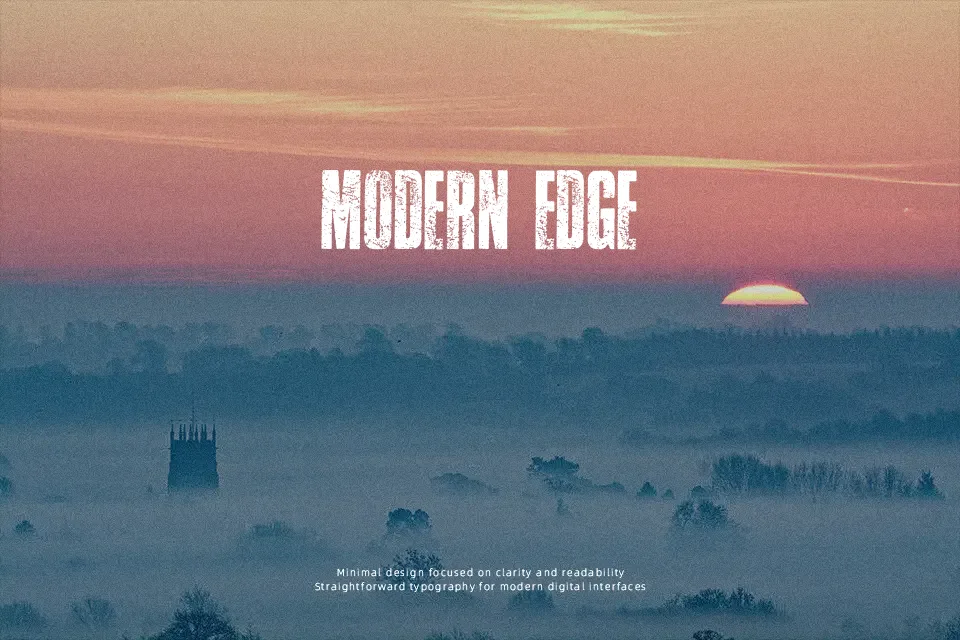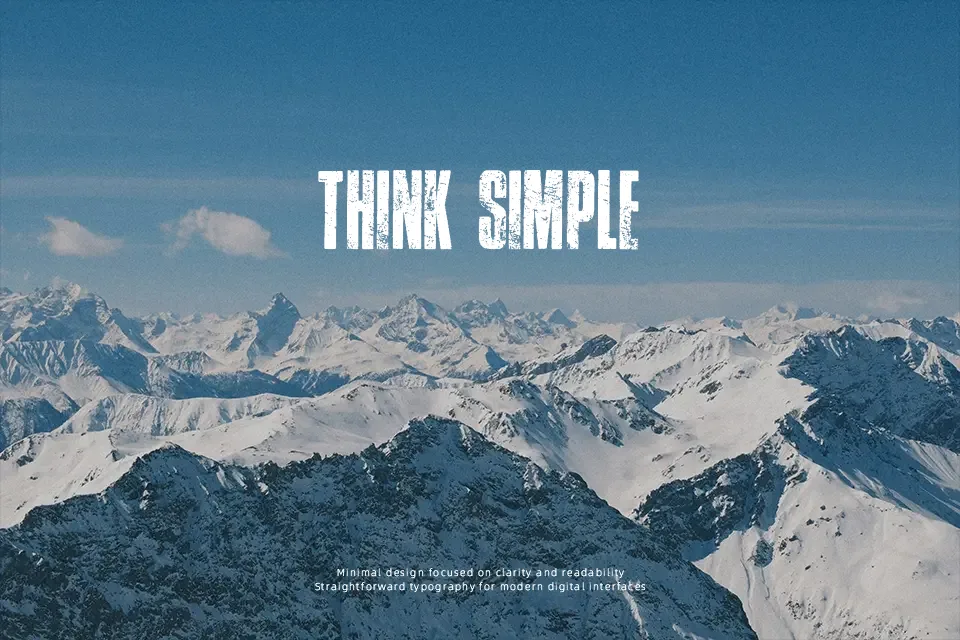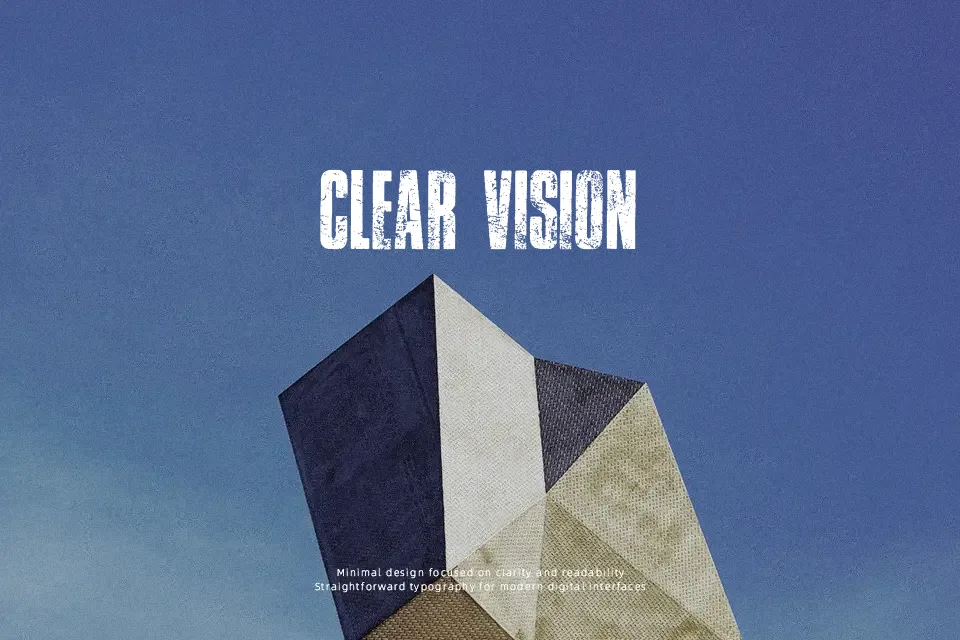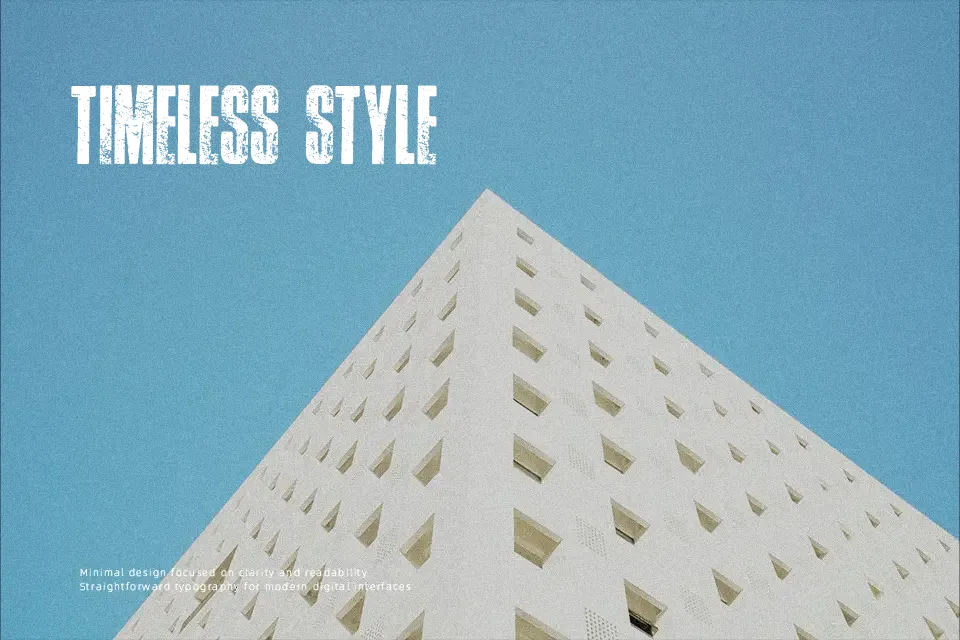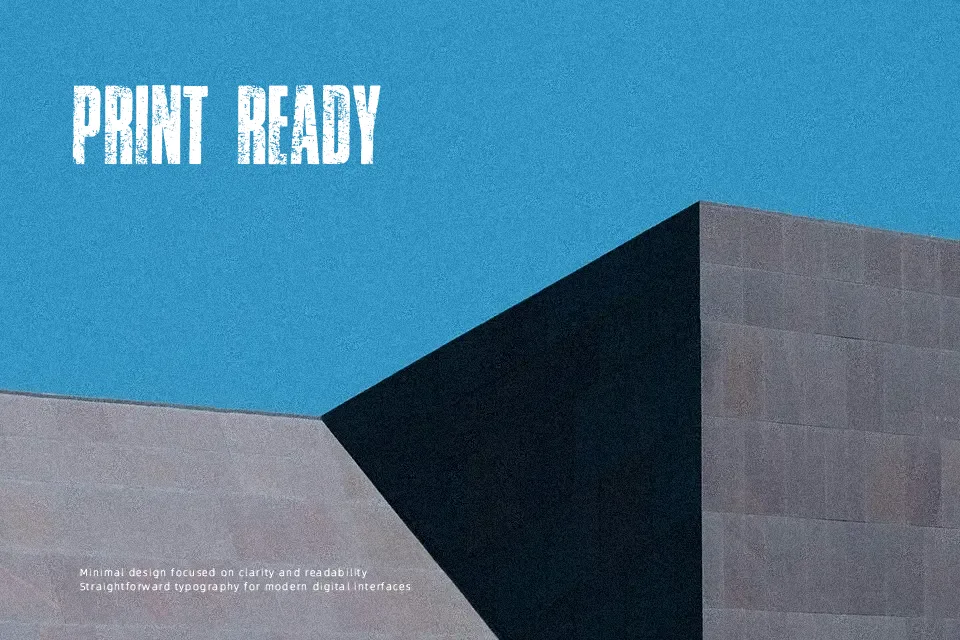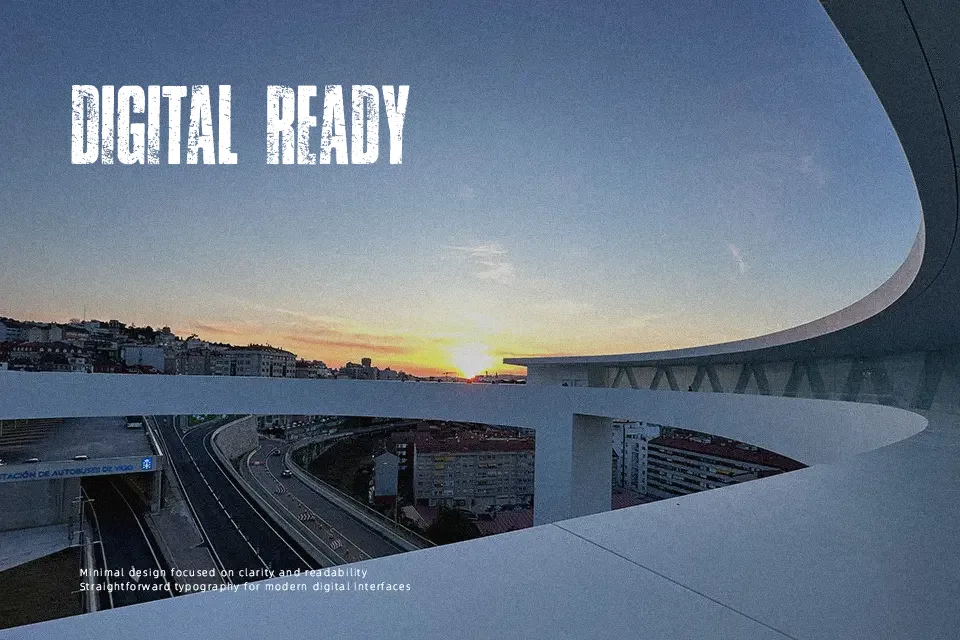
Traffic Font
Evaluating Traffic Font reveals a specialized display typeface engineered primarily for heavy visual impact rather than body text. The letterforms exhibit dense stroke weight marked by chipped, eroded cutouts along each boundary, creating a gritty industrial surface. Character spacing remains relatively tight, which reinforces solid headline composition while preserving recognizable contours at larger display scales. Narrow horizontal proportions allow long titles to occupy compact horizontal dimensions effectively without sacrificing visual weight. However, the heavy distressing and condensed spacing severely compromise clarity across smaller interface labels or continuous reading. Displaying the typeface in large-scale streetwear graphics, aggressive poster headers, or video game title screens maximizes its distinct visual personality.
Best For: music festival posters, apparel graphics, video game title screens, product packaging labels
Not Ideal For: continuous body text, mobile interface labels, corporate annual reports, dense editorial layouts
Perfect for gaming, headline, and music, with a bold and condensed style.